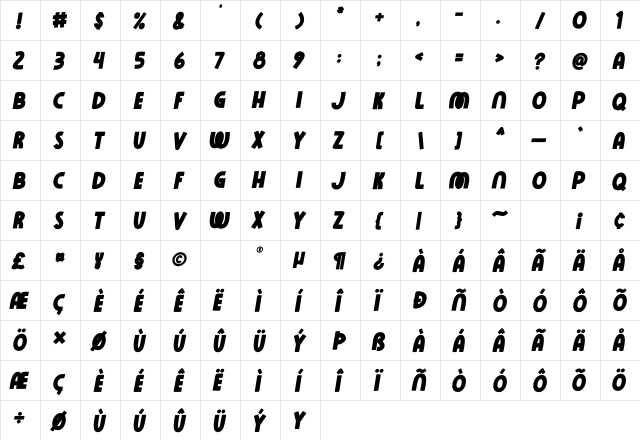
Rose Minie Bold Italic
Design Context for Rose Minie Typeface
Rose Minie is a composed and adaptable typeface that performs quietly and consistently across a wide range of design contexts. Its italic angle brings a sense of urgency and motion to the letterforms. The heavy weight commands attention and anchors typographic hierarchies.
Pro Tip: Try Rose Minie for annotation and caption copy alongside an upright companion — the contrast in angle creates a dynamic but ordered typographic system.